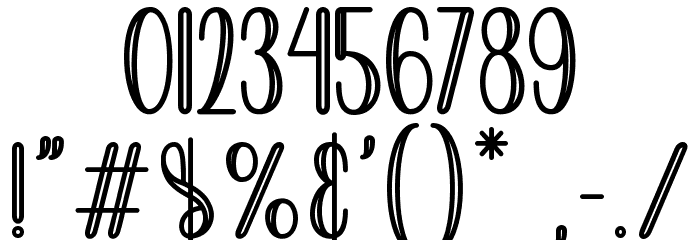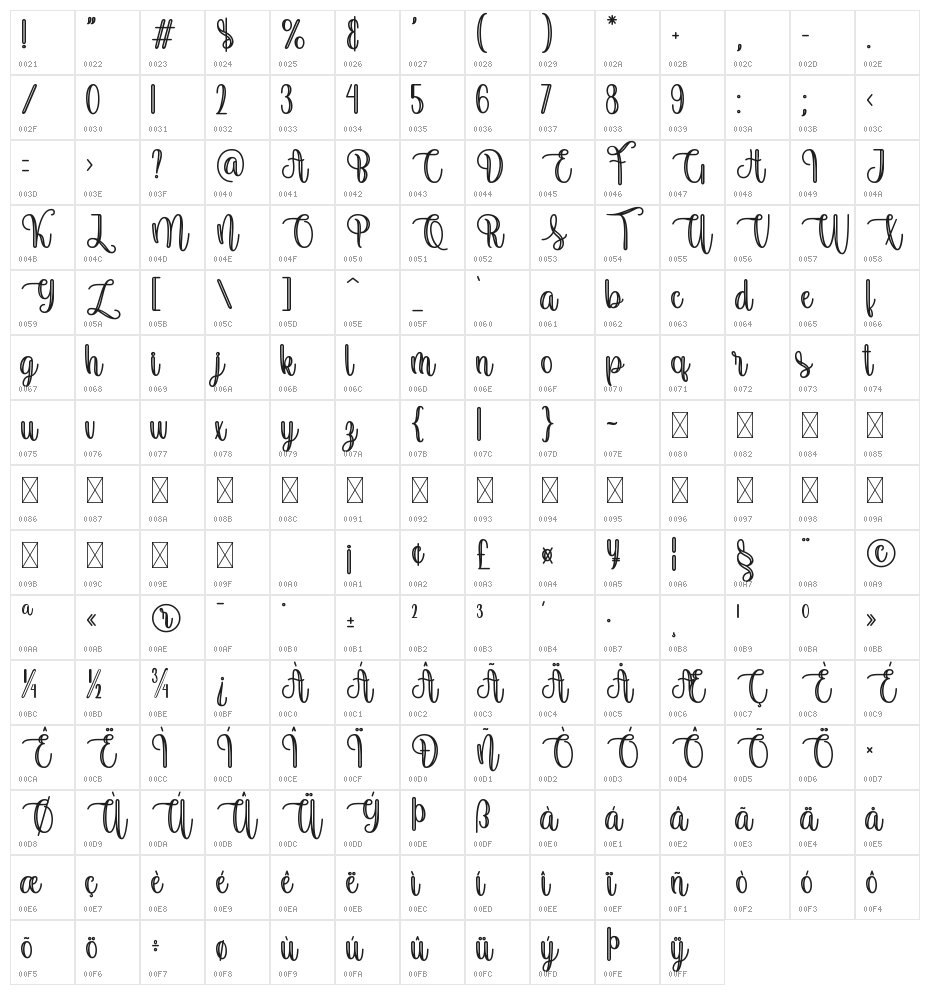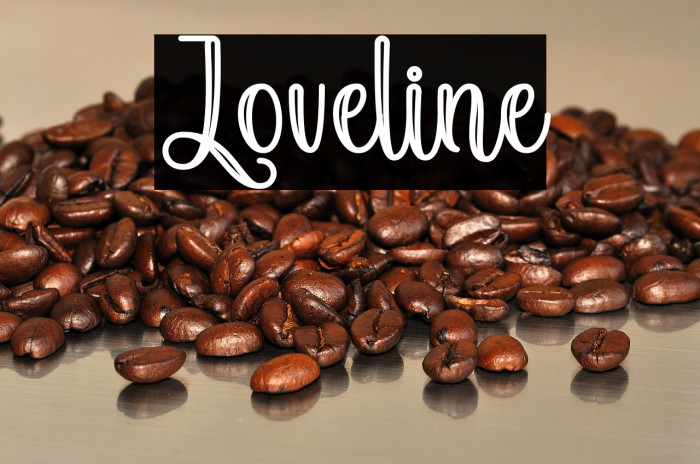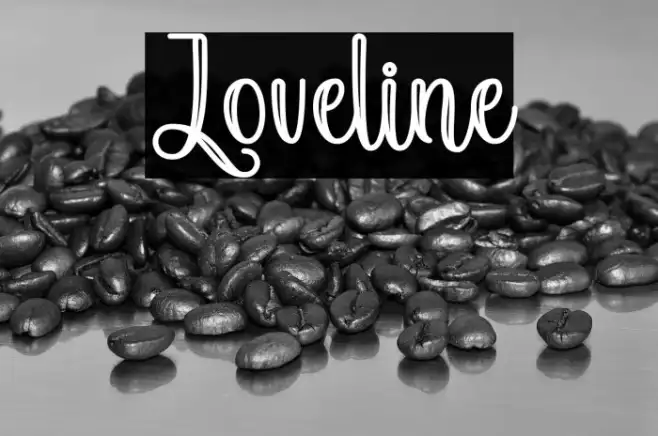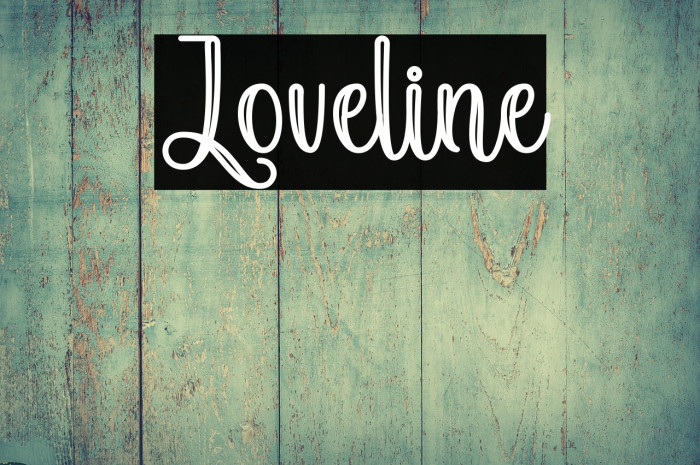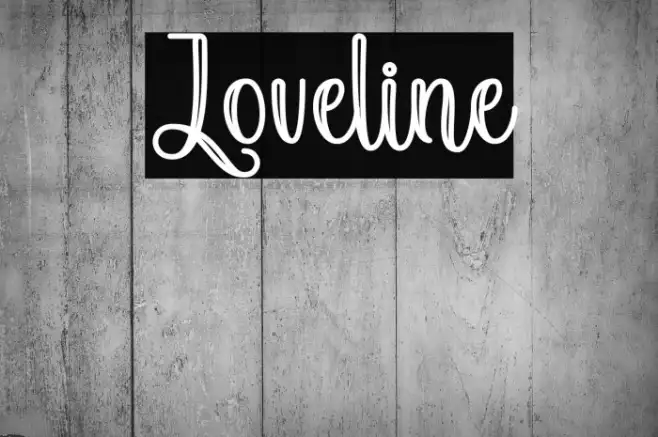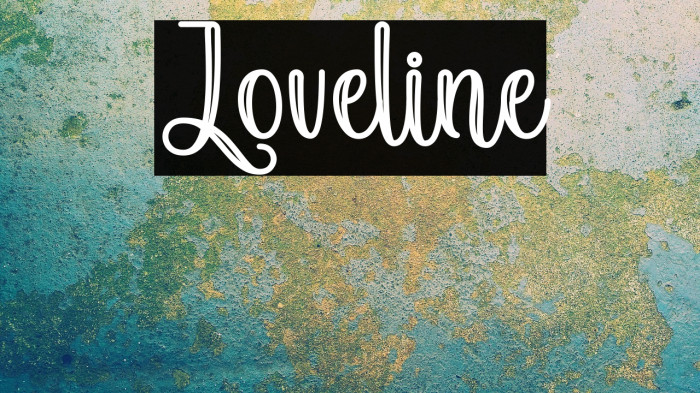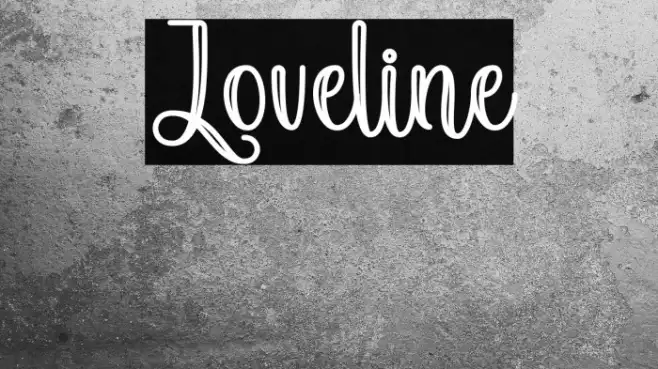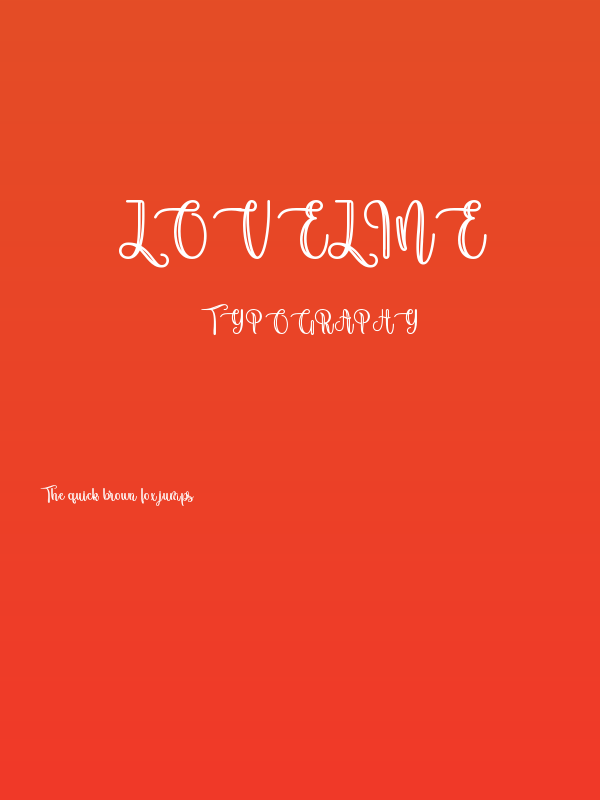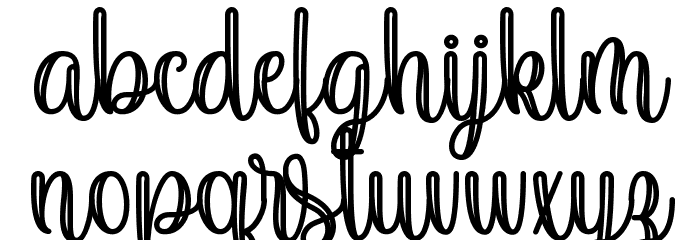
Loveline Font
Loveline Description
This font features a playful and whimsical script style with a handwritten appearance. The uppercase letters are characterized by their looping, flowing lines, giving them an elegant yet casual feel. The lowercase letters maintain a consistent style, with rounded edges and smooth curves that enhance readability. The numbers and special characters follow the same design principles, ensuring a cohesive look throughout. The font's overall aesthetic is both charming and approachable, making it suitable for a variety of creative projects.
| Proposed Projects | Ideal for wedding invitations, greeting cards, personal branding, and playful logos. |